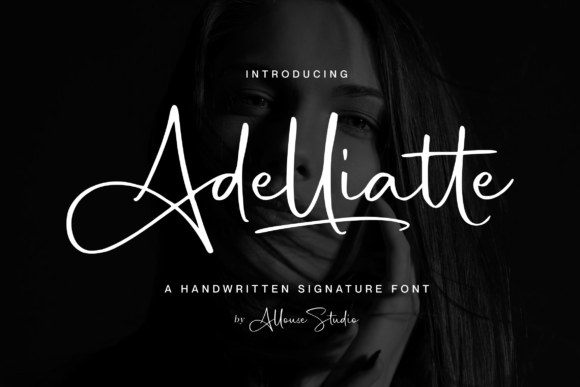
Introducing Adelliatte Font: An Exquisite Handcrafted Script Font to Elevate Your Creative Expression
In the realm of typography, there lies a font that captivates with its enchanting beauty and versatile charm - Adelliatte Font. This remarkable creation from the acclaimed foundry, allouse.studio, is a testament to the art of calligraphy, meticulously crafted to evoke emotions and leave a lasting impression.
Adelliatte Font is not merely a collection of letters and symbols; it is an artistic masterpiece that dances across the digital canvas with grace and elegance. Its flowing lines, reminiscent of a skilled calligrapher's hand, infuse your designs with a touch of sophistication and personal charm. Whether you're a seasoned designer or an aspiring creative, this font will effortlessly elevate your projects to new heights.
Step into a world where imagination thrives, where words transform into captivating visual experiences. Adelliatte Font is the perfect companion for your creative endeavors, whether you're designing logos, branding your business, crafting social media posts, or creating stunning wedding invitations. Its versatility knows no bounds, adapting seamlessly to a kaleidoscope of design styles and themes.
Immerse yourself in the beauty of handwritten signatures with Adelliatte Font. Its meticulously crafted curves and flourishes add a touch of authenticity and warmth to your designs, evoking a sense of personal connection and intimacy. Whether you're designing product packaging, creating a magazine spread, or expressing your thoughts on social media, Adelliatte Font will add a touch of elegance and sophistication that will leave your audience captivated.
With Adelliatte Font, you'll discover a new realm of creativity, where ordinary words transform into beautiful expressions of art. Its captivating charm will elevate your designs to new heights, ensuring that your message resonates with your audience and leaves an unforgettable impression.